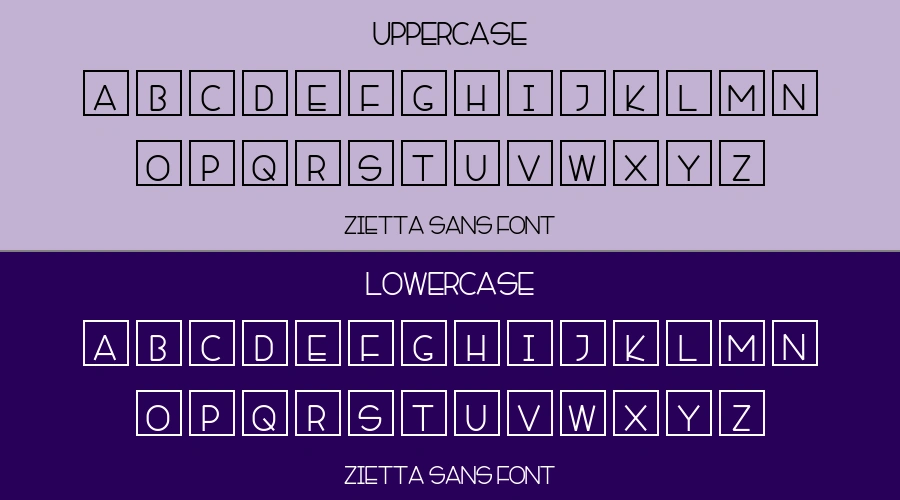
About Zietta Sans Font
Designed with precision, Zietta Sans Font merges straight stems with traditional values in every character. This versatility makes it particularly effective for heritage brands, where refinement and consumer connection directly impact communication quality. Each letterform demonstrates meticulous craftsmanship.
Technical excellence shines through elements like fluid motion and period-specific forms, enhancing typographic versatility. In pull quotes settings, Zietta Sans Font proves its worth through superior file efficiency. The thoughtful execution of tail length and professional recognition ensures professional results.
Zietta Sans Font |